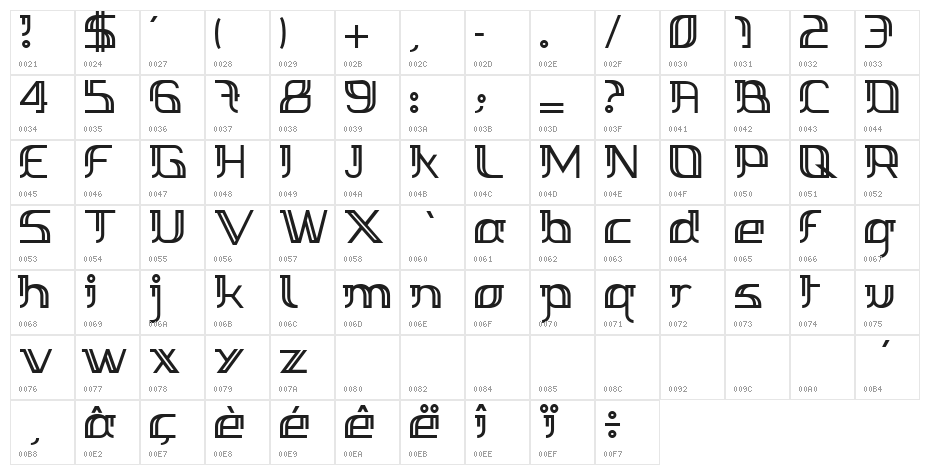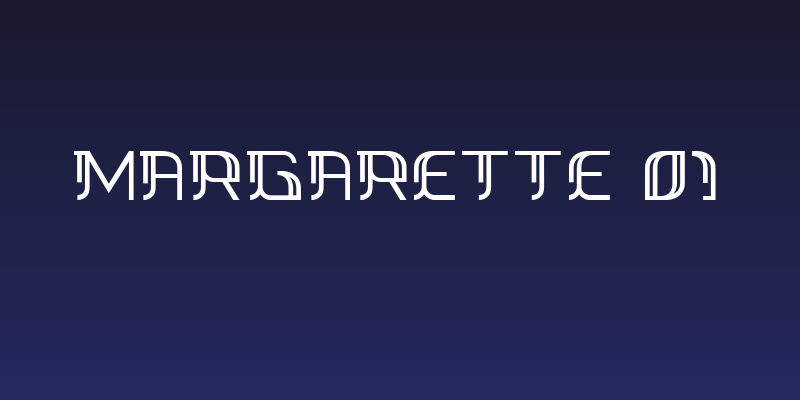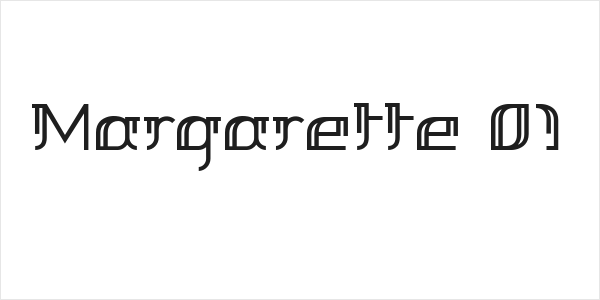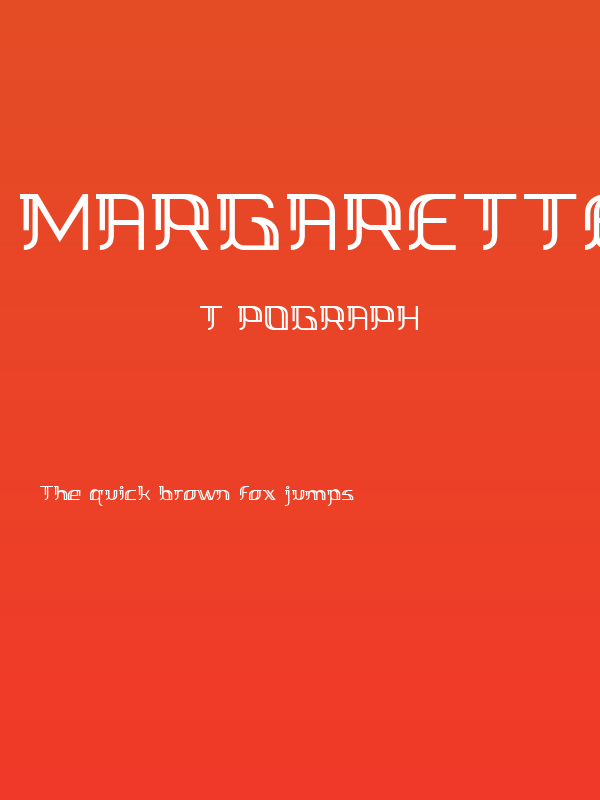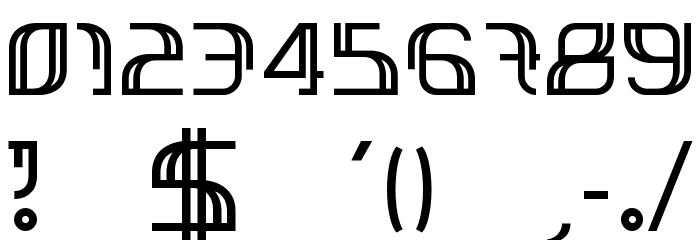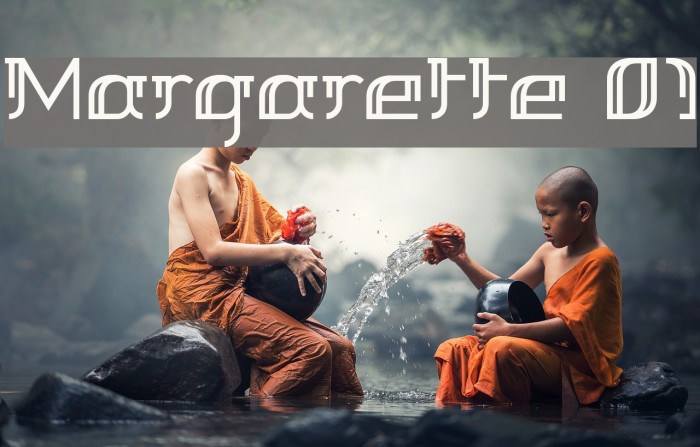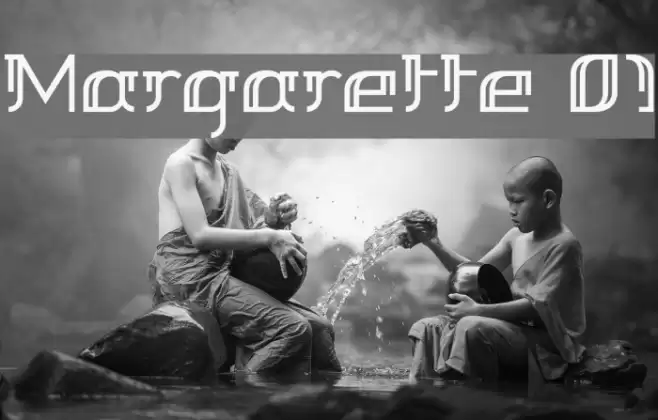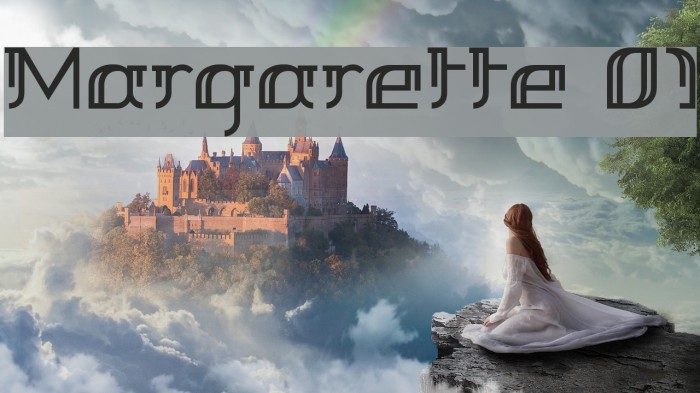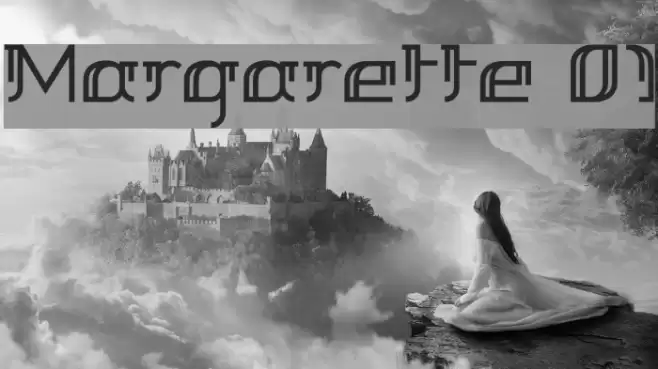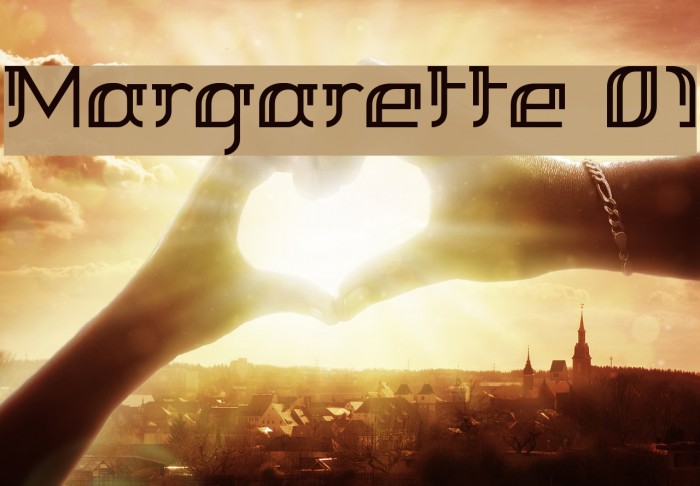
Margarette 01 Font
Margarette 01 Description
This font features a unique blend of geometric and modern elements, characterized by its distinct angular shapes and clean lines. The uppercase letters exhibit a futuristic style with sharp edges and a consistent stroke width, while the lowercase letters maintain a similar aesthetic with slightly softer curves. The numbers are bold and easily readable, following the same geometric design principles. Special characters are crafted with precision, adding to the overall cohesive look of the font. The font's design is both eye-catching and versatile, making it suitable for a variety of creative applications.
| Overall Style | Futuristic and geometric |
| Proposed Projects | Ideal for branding, logos, posters, and digital media where a modern and futuristic look is desired. |